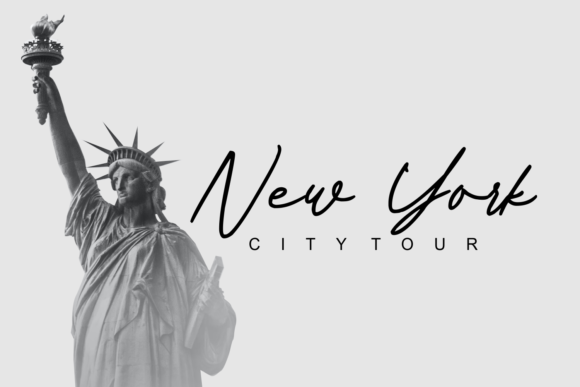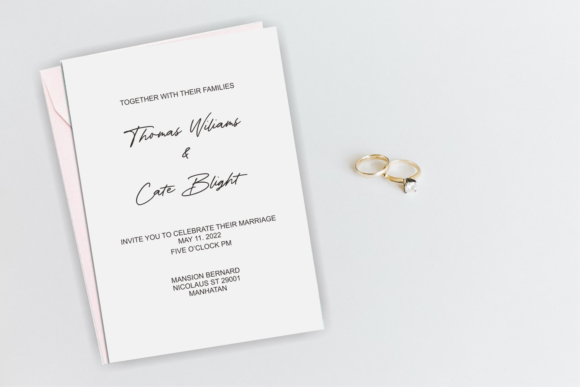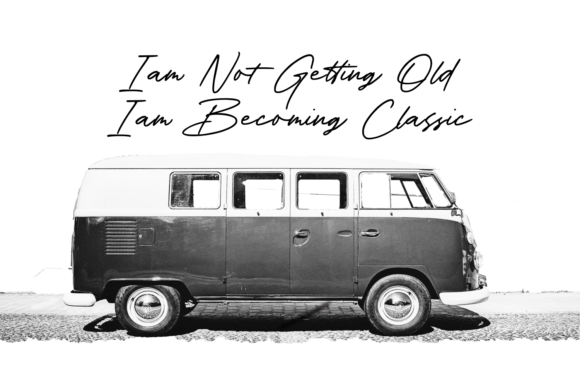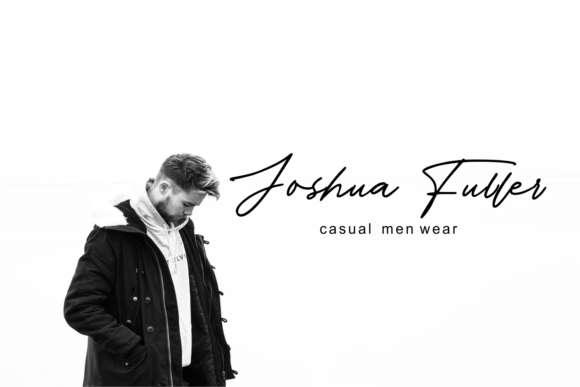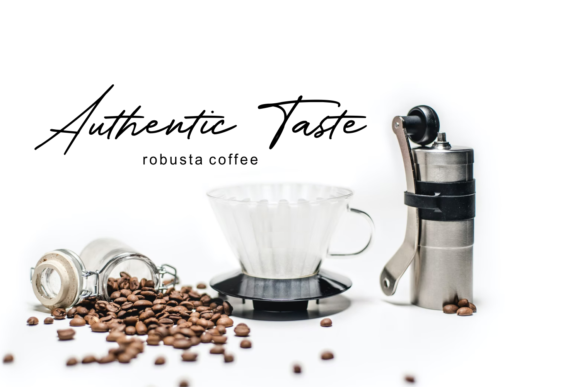
About Hilliamoon Font
Hilliamoon is a modern handwritten script. Its wonderful look will make your project look natural, stylish, and beautiful. It is the perfect choice for any project that requires a handwritten style.
Add it to your photography, watermarks, social media posts, advertising, logos & branding, invitations, product design, labels, stationery, wedding designs, product packaging, special events, and anything that you may think of, and watch them stand out!